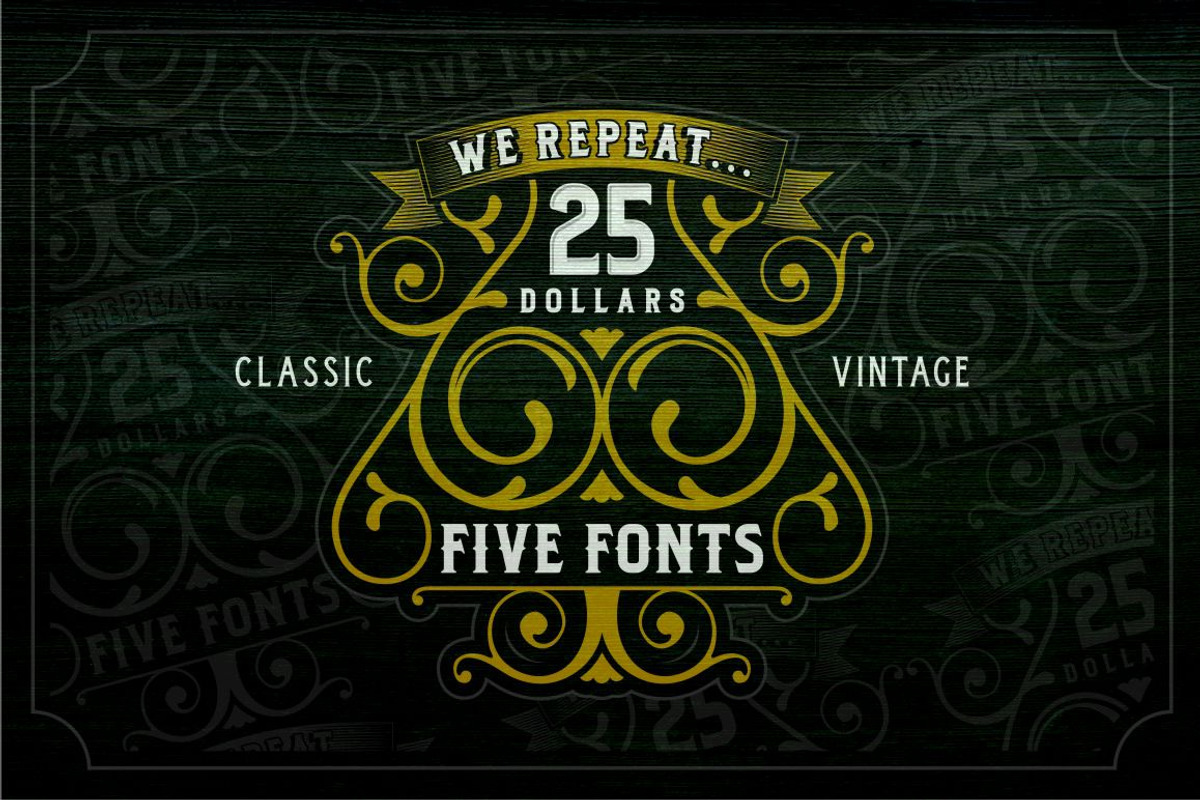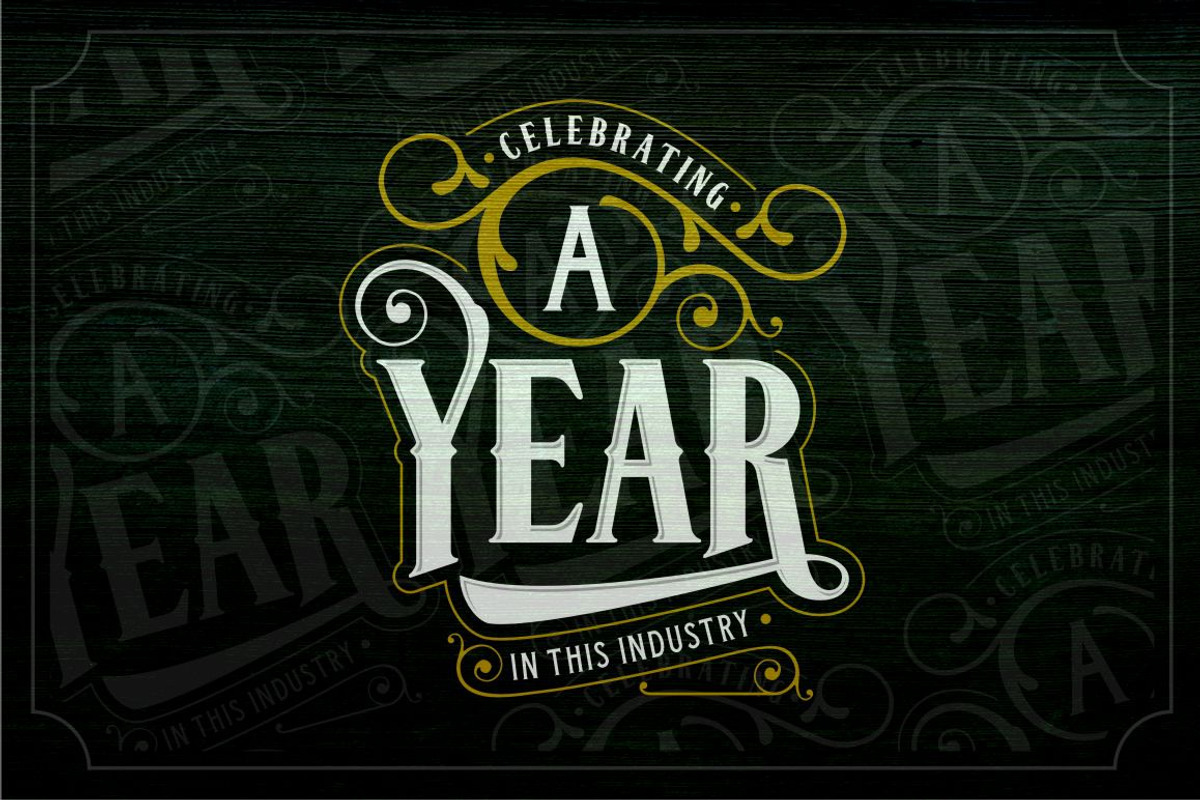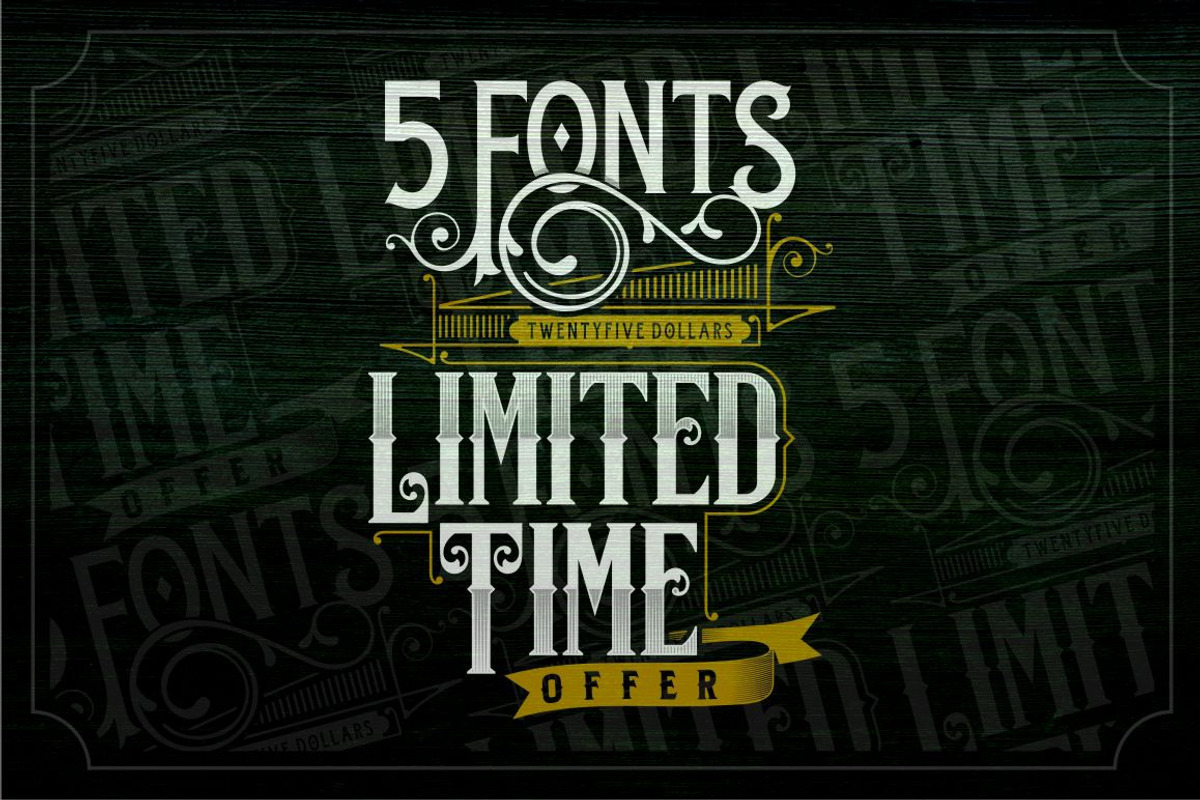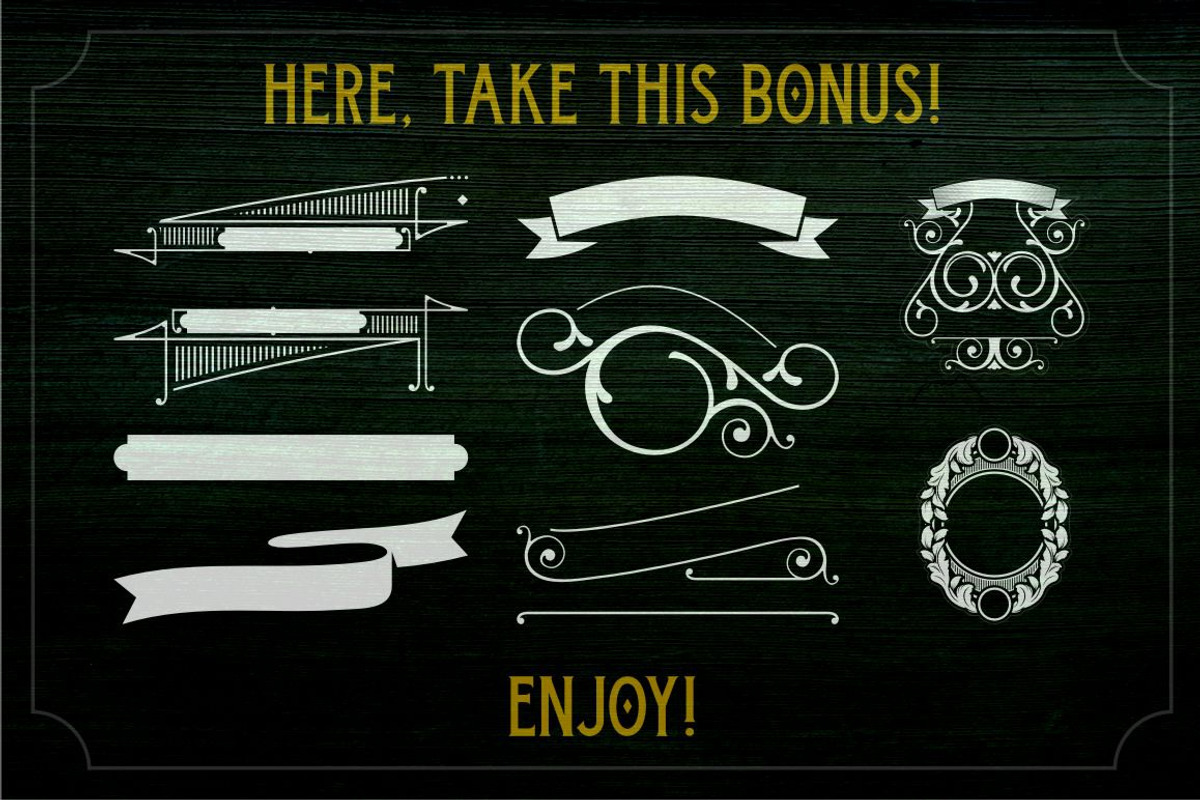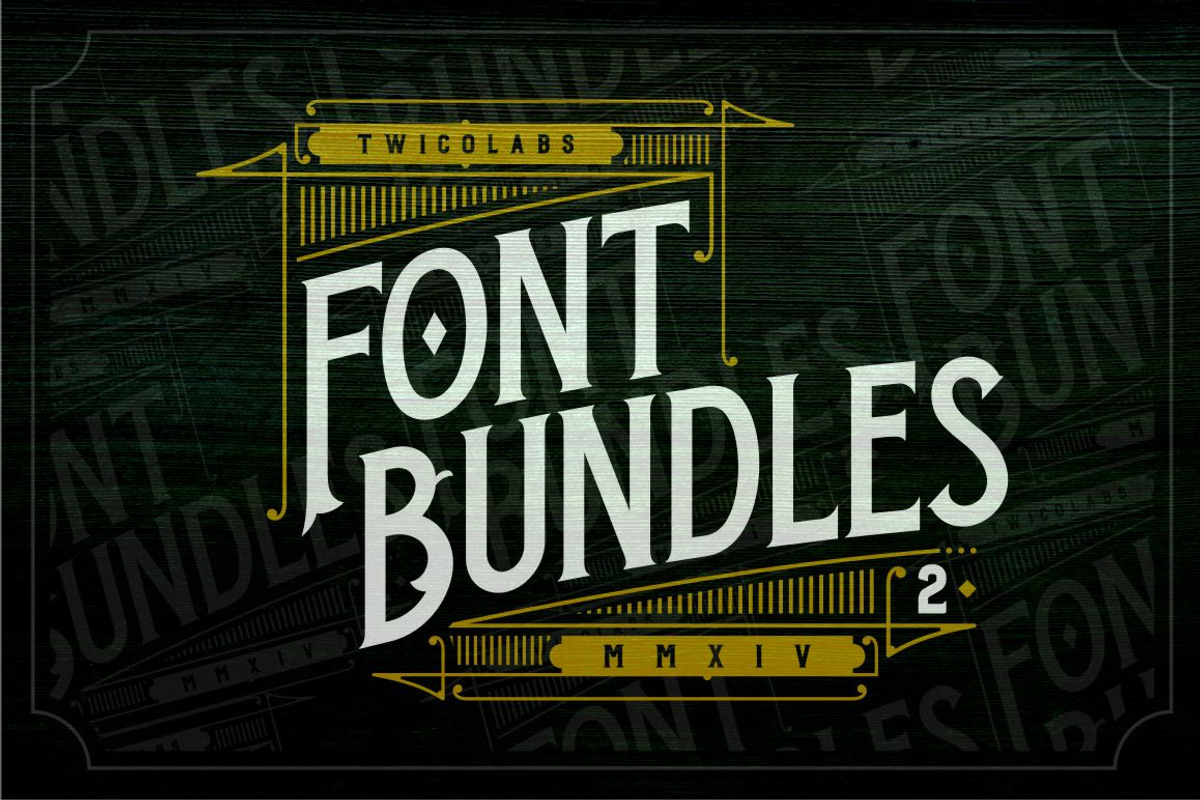
Font Bundles 2
Font Bundles 2 by Twicolabs Fontdation is a font selected for branding, posters, packaging, typography.
Why Font Bundles 2 is worth a look
Font Bundles 2 by Twicolabs Fontdation fits naturally into Branding, posters, packaging, typography.